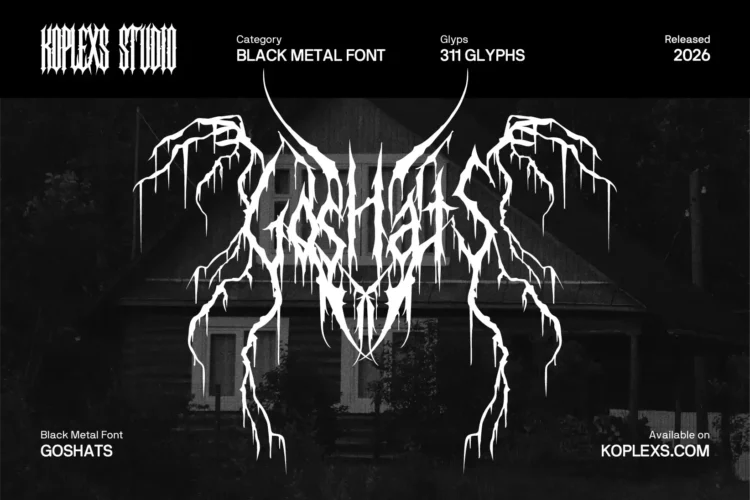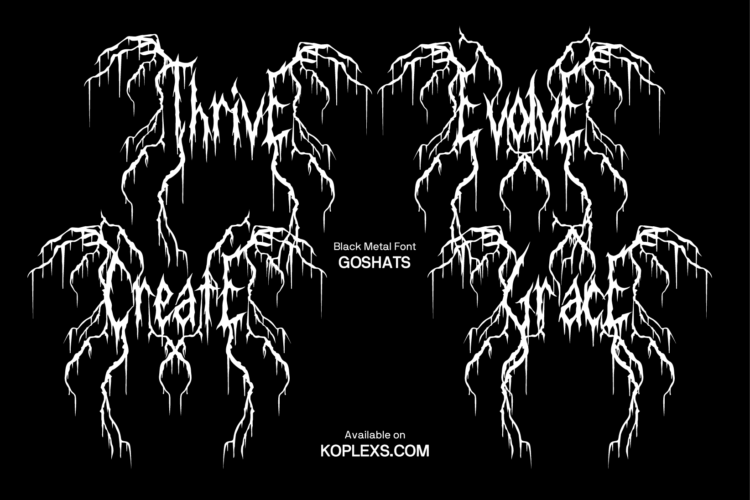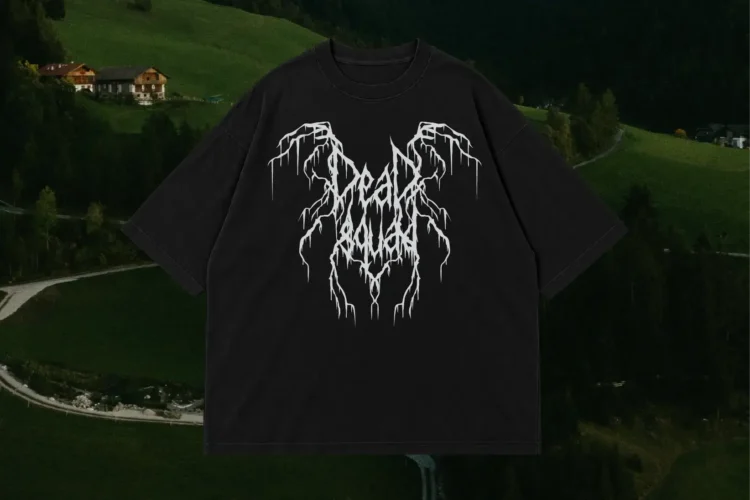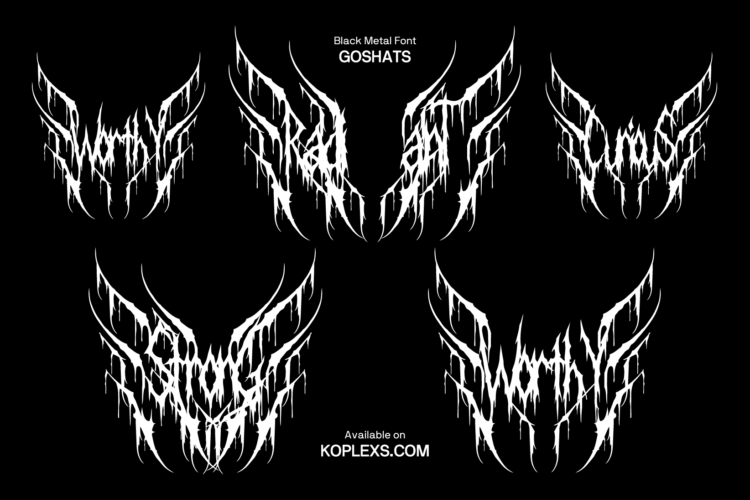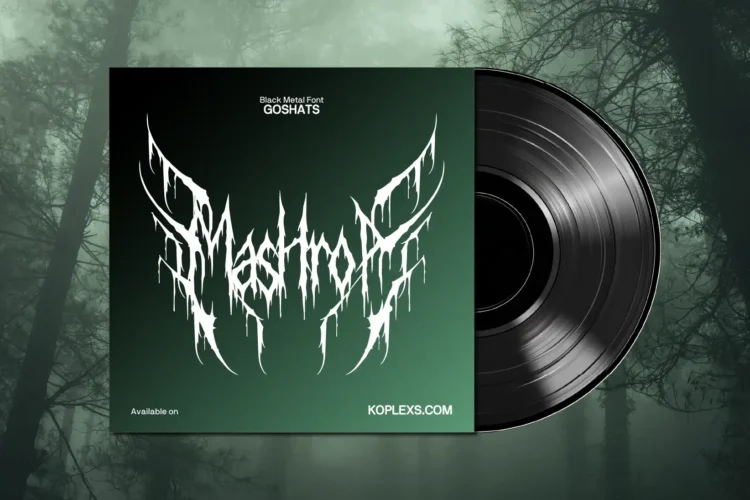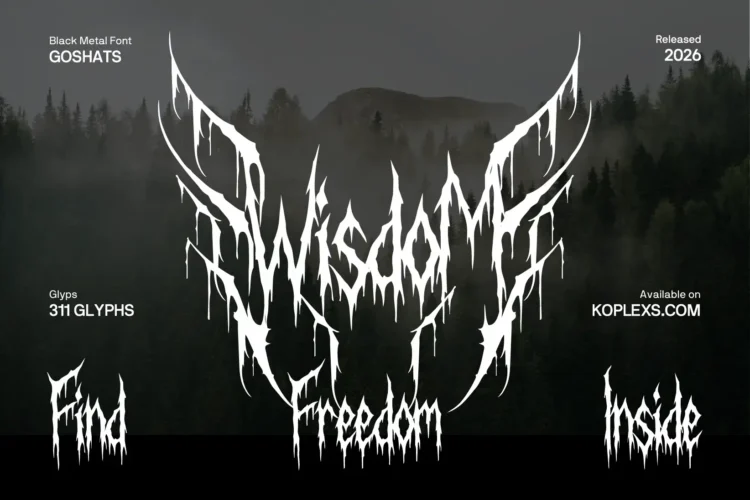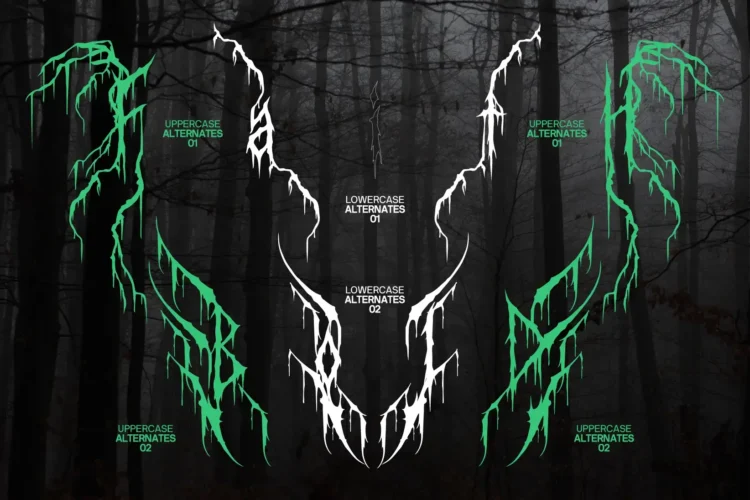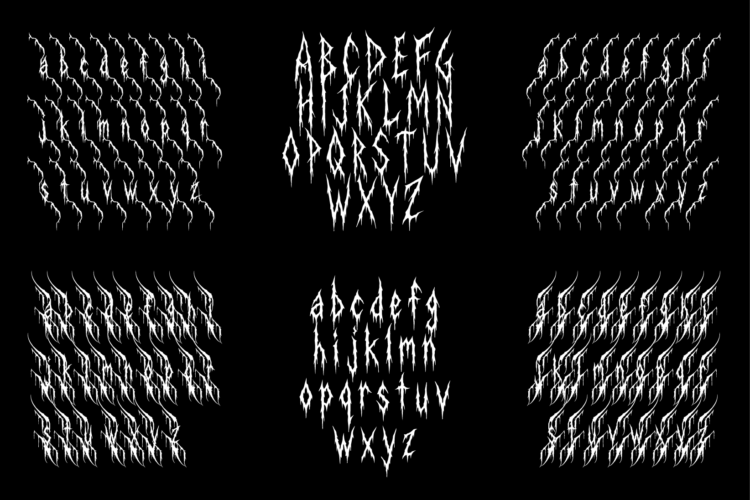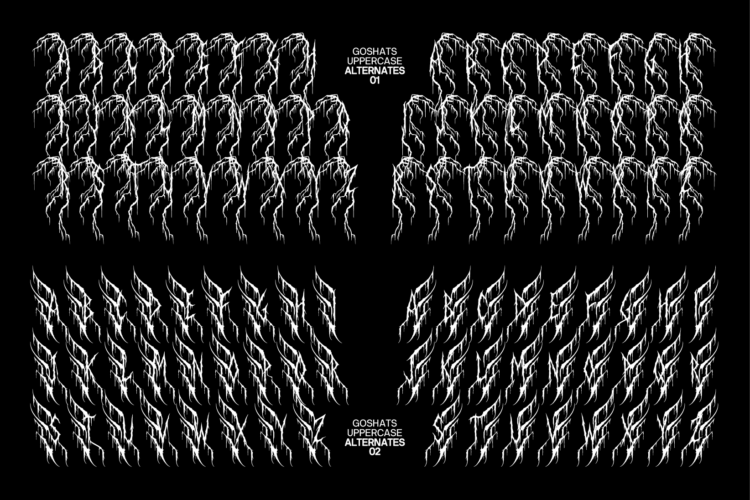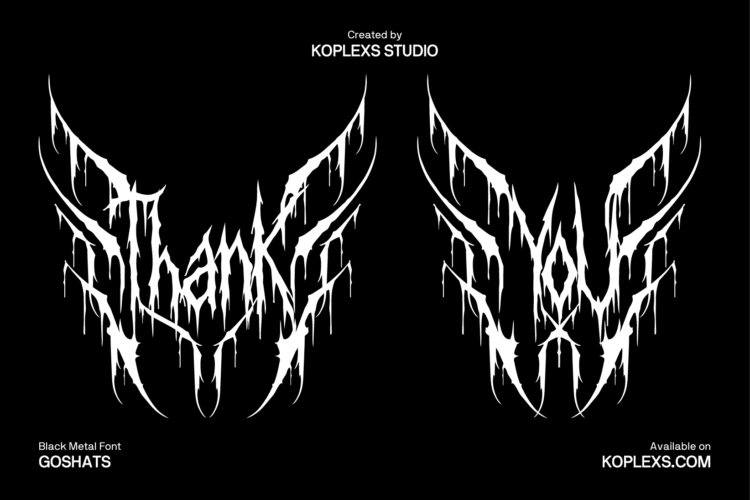
Goshats Font
Goshats Font Black Metal Font
Goshats Font: Black Metal Font for Logos & Album Covers
Goshats Font is a black metal font by Koplexs Studio with sharp, thorny letters and dramatic branching strokes. Its tangled details and extended alternates give short words the presence of a band emblem, making it a strong choice for music artwork and dark visual identities.
The letterforms combine narrow, jagged shapes with sweeping extensions that reach above, below, and around the word. Use the standard characters for a compact title, then add decorative alternates where you want a more elaborate silhouette.
• Ligatures & Alternate Fitures
Where Goshats Font Works Best
• Black metal and death metal band logos.
• Heavy metal album covers and vinyl packaging.
• Concert posters, tour announcements, and festival graphics.
• Band merchandise, T-shirts, and alternative streetwear.
• Horror titles and dark fantasy artwork.
As a metal band font, Goshats works best at larger sizes, where its intricate details have room to show. Pair it with simple, readable text for tracklists, dates, and supporting information.
Goshats Font brings thorny lettering, branching strokes, and 311 glyphs to dark designs. Use its uppercase, lowercase, and decorative alternates for band logos, album covers, posters, and merchandise.